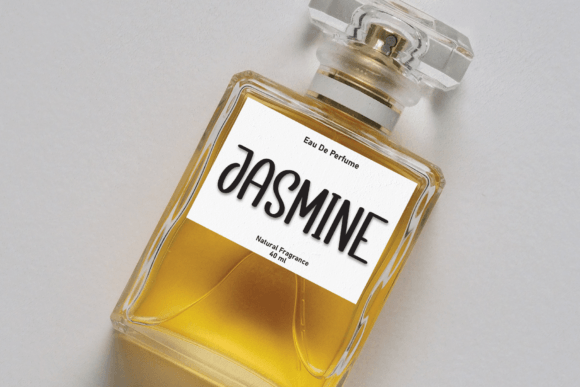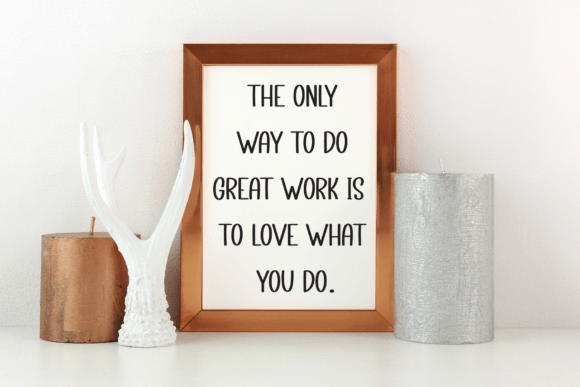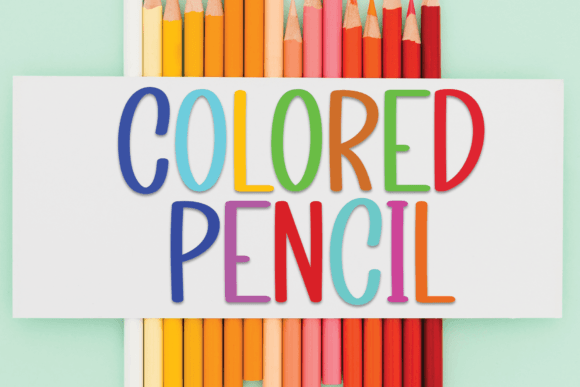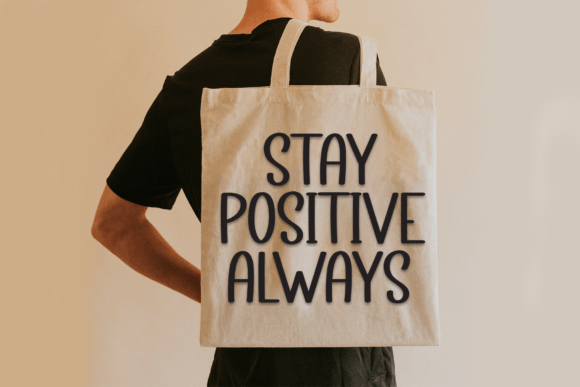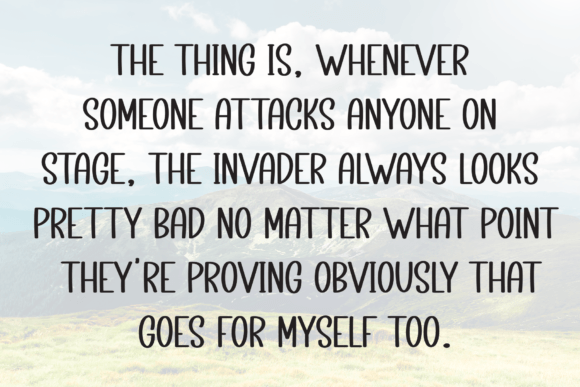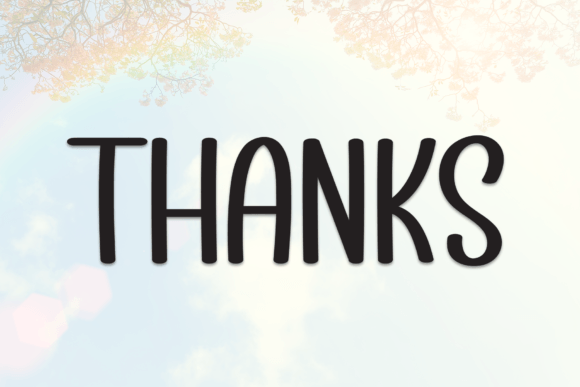
Unleashing Your Creativity: The Bright Monday Font
Have you ever found yourself stuck in a creative rut, staring blankly at your computer screen as ideas refuse to flow? We’ve all been there. But sometimes, all it takes is a little spark to ignite your imagination. For designers, finding the perfect font can be that spark. That’s where the Bright Monday Font comes in – a sweet and friendly handwritten font designed to bring a touch of warmth and personality to your designs.
This unique and natural font is the perfect addition to any project, limited only by your imagination. Whether you’re working on a branding project, creating social media graphics, or designing a wedding invitation, the Bright Monday Font is sure to bring a smile to your face and inspire your creativity.
Bright Monday Font Key Features
- Font Family: Bright Monday is a sans-serif font family.
- Unique Characteristics: Bright Monday features a modern, clean design with optimized letterforms for digital use, making it ideal for web and mobile applications.
- Languages Supported: Supports multiple languages, including Latin, Cyrillic, and Greek scripts.
Bright Monday Font Review
I recently had the chance to work with the Bright Monday Font and I must say it’s an interesting addition to the world of typography. ✨ The font’s clean lines and rounded edges make it perfect for modern designs that require a touch of friendliness. ✨ I particularly enjoyed using it for UI/UX projects, where its readability and legibility shone through. ✨
- Works well for:
- Modern UI/UX projects
- Friendly and approachable designs
- Clean and minimalist layouts
However, there are some limitations to consider. ⚠️ The font’s versatility is somewhat limited by its lack of bold and italic variations. ⚠️ This can make it challenging to create emphasis or distinction in certain areas of the design. ⚠️ Additionally, the font’s rounded edges can sometimes make it difficult to read at smaller sizes. ⚠️
Overall, I’d say the Bright Monday Font is a solid choice for designers who are looking for a clean and modern sans-serif font. While it may not be suitable for every project, it’s a great option for designs that require a touch of friendliness and approachability. With a bit of creativity and experimentation, you can achieve some truly great results with this font.
The Bright Monday font is ideal for:
- Brand logos and identities
- Restaurant and cafe menus
- Marketing materials and social media graphics
Remember to use the Bright Monday font in conjunction with high-quality images and design elements to create a cohesive and visually appealing design.